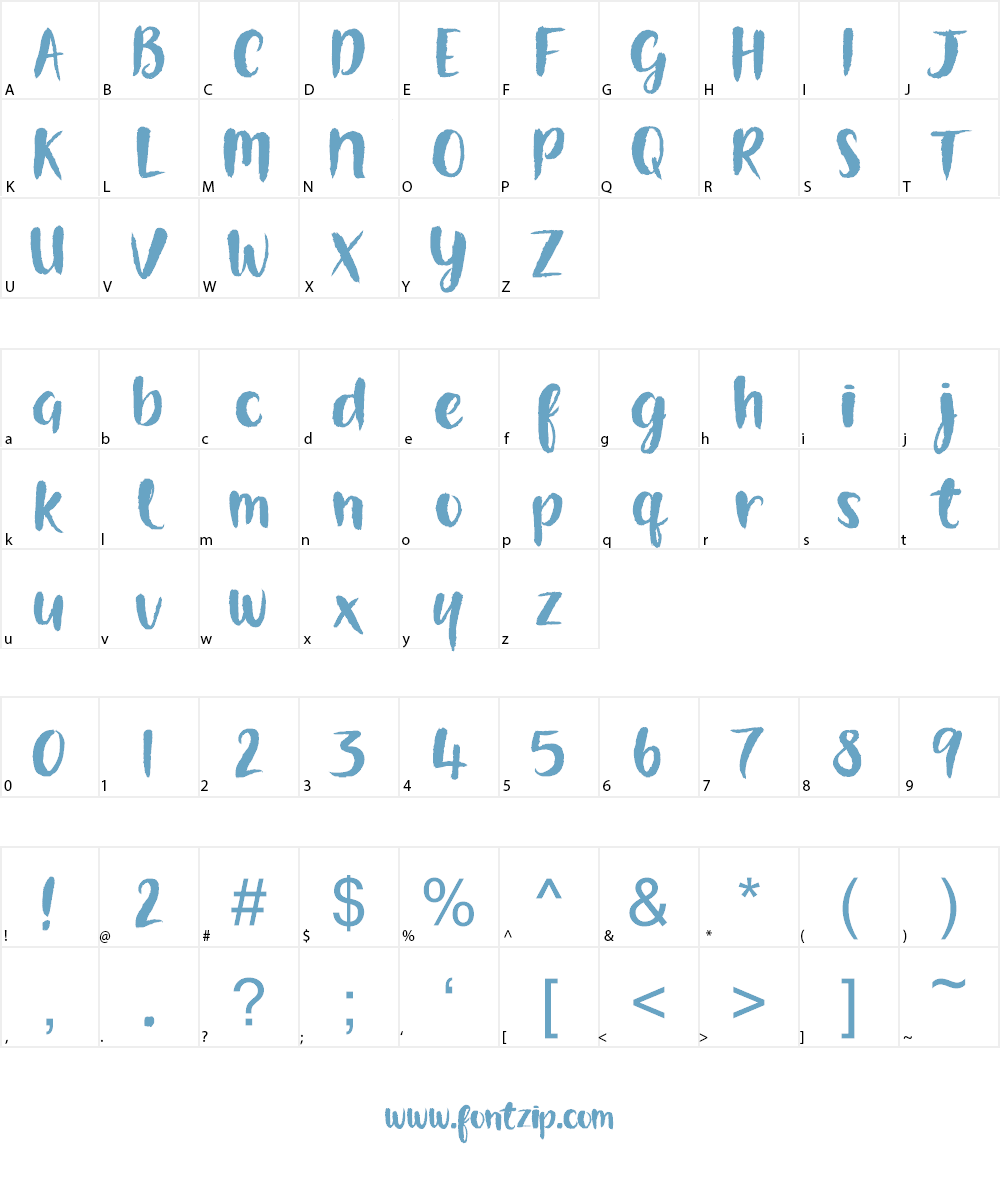
- Introducing -
Gorgeously World
Bold Brush typeface.. Demo Version,.. Please visit http://www.knackpack.studio for the full / license version.. Hope you like it.